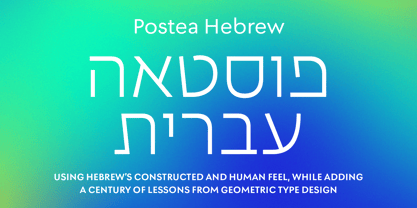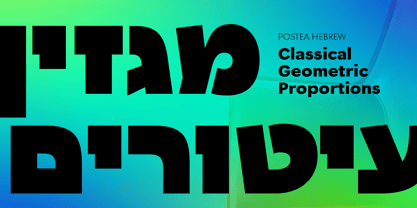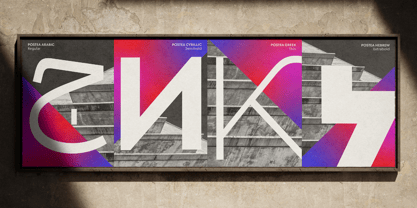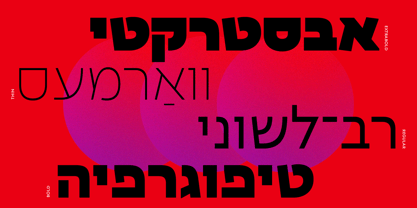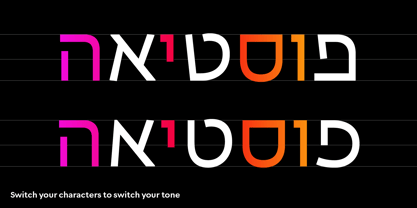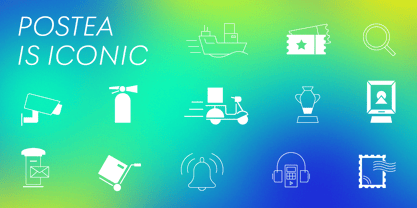
Postea Hebrew
by TypeTogether
The Postea Hebrew Font Family was designed by Veronika Burian, José Scaglione, Tom Grace and published by TypeTogether. Postea Hebrew contains 8 styles and family package options.
As an extension of Veronika Burian and Jose Scaglione’s Postea Latin, the Postea Hebrew font family is a take on geometric typefaces by Tom Grace, with consultancy by Meir Sadan. Postea Hebrew is infused with the right attributes for setting paragraphs and headings, and perfect for branding and text use. The classic curves and purposeful details keep its individuality intact while allowing it to fit an incredible range of design needs. Because of these qualities, Postea Hebrew makes normal reading in paragraphs a cinch and your branding memorable.
Postea Hebrew’s main goal was to match the Latin’s colour and rhythm for a unified look in multiscript typography. This required studying Postea’s existing Latin version, as well as Hebrew typefaces and lettering made with a similar look or during a similar time period. A second goal was to provide a style for modern Hebrew and Yiddish typography which combines geometric and handmade structures for a readable, familiar, and still novel family.
Compared to midcentury attributes of restraint and a sparse appearance, Postea’s deliberate play between character widths injects its personality with liveliness and distinction. Another nice surprise awaits: spacing for the Hairline weight is tighter for optimal use in large headings and titles, while the regular weights have the expected, slightly looser spacing for text.
Postea Hebrew is opinionated and has modern stylistic sets with softer, specially-designed alternate characters. The default characters ‘b’ and ‘u’ are gentle around the bowls, so Stylistic Set 03 replaces them with the typical, harder forms. SS02 includes ‘f, t, and y’, and is a more stoic interpretation of the default characters with several Arabic, Cyrillic, Greek, and Hebrew alternates here. The single-bowled ‘a’ can be found in SS04. And wallpaper-worthy geometric symbols and ornaments are packed into SS01 and 09.
Postea Hebrew’s seven upright styles or one variable font are accompanied by an all-new family of icons in three weights, for which we developed a new, easy activation method. Simply bookend the desired icon name with colons (:arrowUp: :firstAid: :aid: :chargingStation:), making sure to capitalise each word after the first word, then select it and activate SS10. Icons include wayfinding, social interface, and sanitary precautions like face masks, thermometers, hand washing, and much more.
Postea Hebrew brings all this together nicely, invoking a balance between a constructed and human feel while benefitting from a century of geometric type design. The multiscript family is resilient in the number of ways it can be used, and its recognisable characters make it a prime selection for branding, signage, corporate typefaces, and magazines. Beginning with 100 years of lessons in geometric type, Postea Hebrew is the rational response for text — an adaptive take on geometric sans serifs.